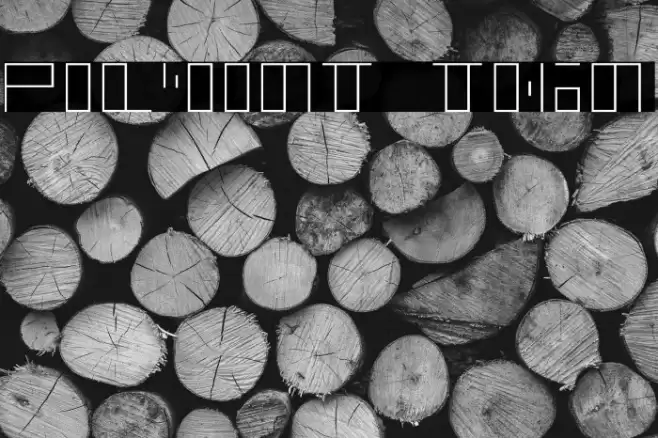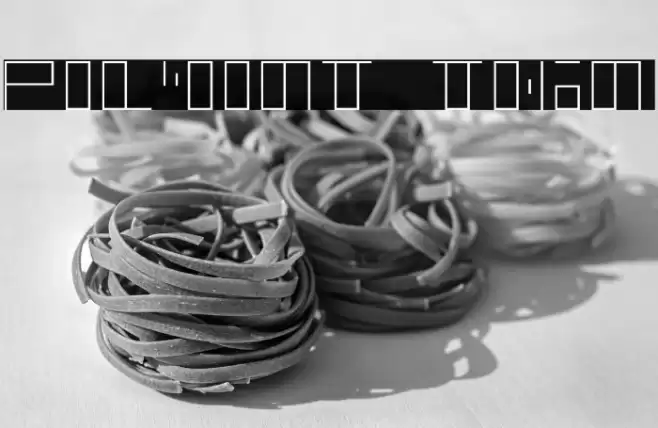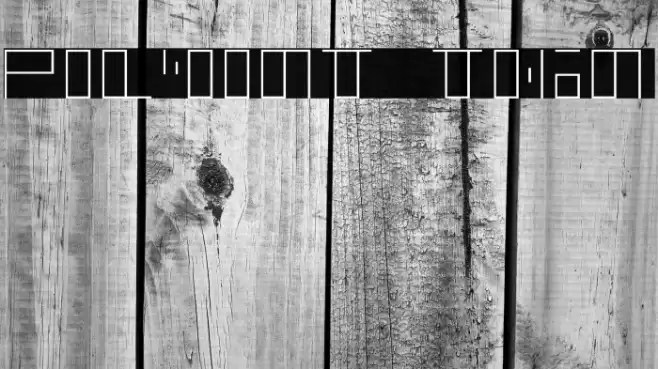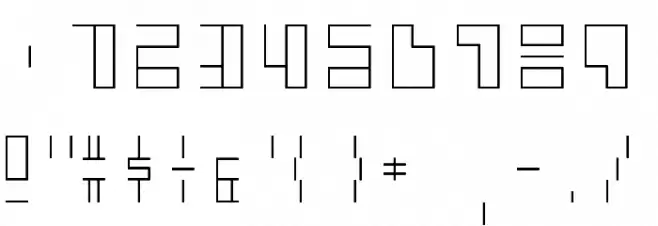
polyont thin Font
polyont thin Description
This font features a geometric and minimalist design, characterized by thin, linear strokes that form each character. The letters are constructed with straight lines and right angles, giving it a futuristic and digital appearance. The uniformity in stroke width across all characters contributes to a cohesive and clean look. This style is reminiscent of digital displays or technical schematics, making it ideal for modern and tech-oriented designs. The spacing between characters is consistent, providing a balanced and structured feel. The font's simplicity and clarity make it suitable for projects that require a sleek and contemporary aesthetic.
A geometric, minimalist font with thin, linear strokes and a futuristic look from Uncategorized fonts.
- Proposed Projects: Ideal for tech branding, digital interfaces, modern posters, and minimalist graphic designs.
- Use Case: Logos, Headlines, Digital displays